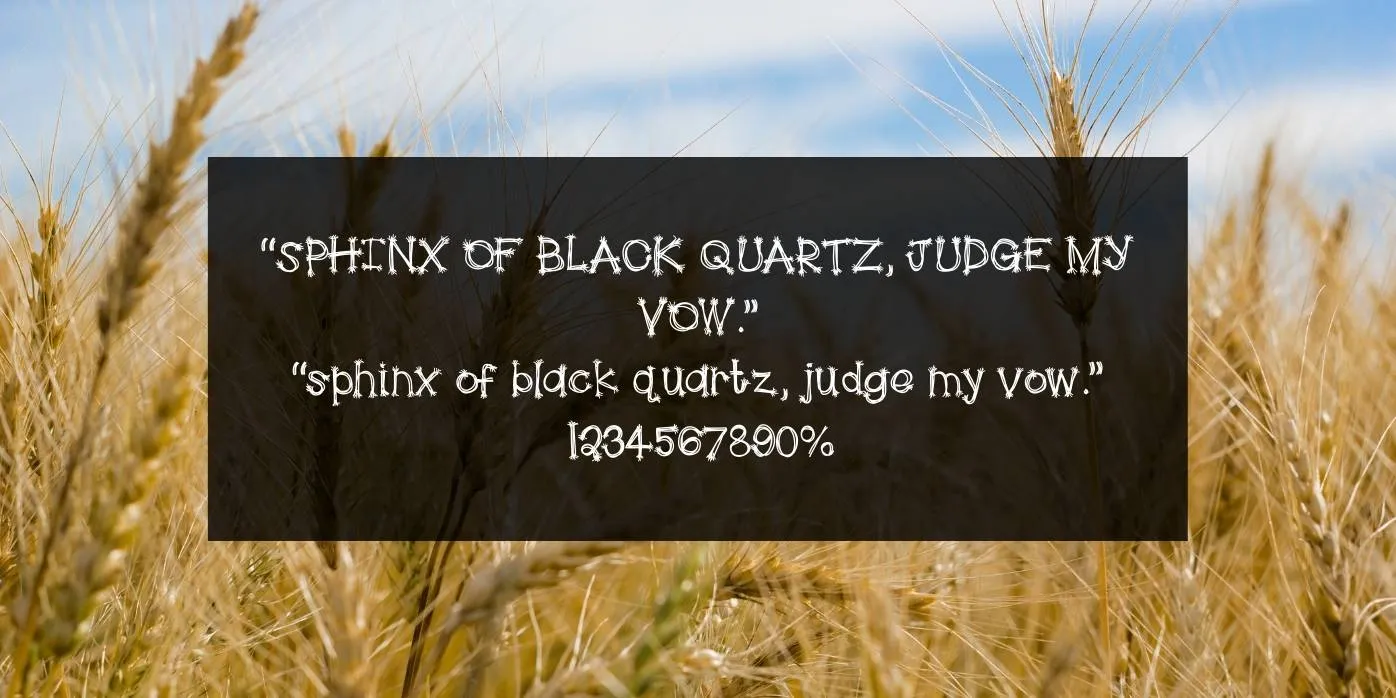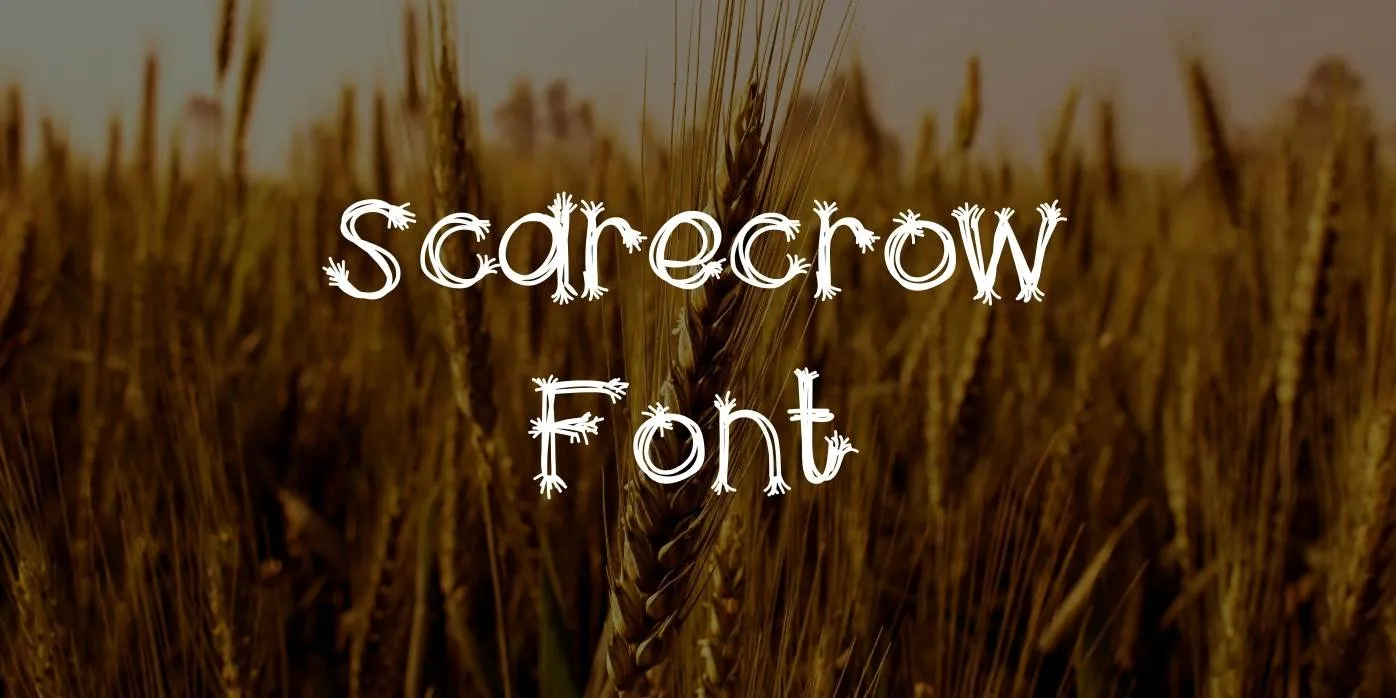
Scarecrow Font
Scarecrow Font belongs to the decorative font family. This typeface was created by Fonthead Design. This font family contains 6 fonts in total. The font is available in regular, italic, bold, and bold-italic versions.
It is not included in google font. Its advanced styles and soft-looking shape make it a great choice for creating unique and eye-catching designs. If you are looking for a Scarecrow Font alternative, you can use the merienda font family by Type Associates. For graphic designs use its generator tool which is the very perfect option.